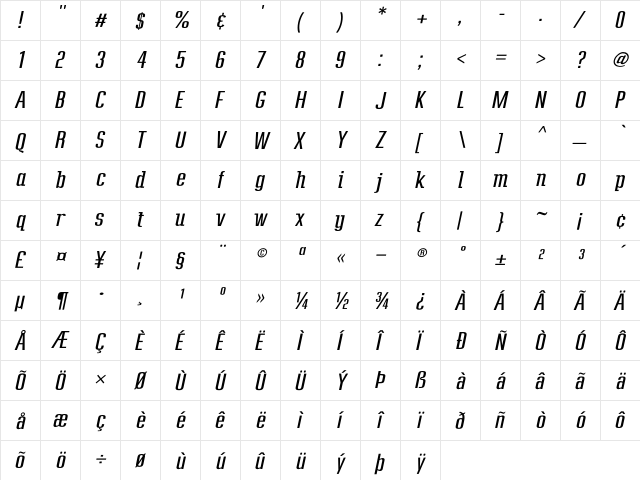
Frown Town Free Italic Regular
Design Context for Frown Town Free Italic Typeface
Frown Town Free Italic takes a measured approach to typography — its balanced proportions and neutral character make it a reliable workhorse for both digital and print work. Its italic angle brings a sense of urgency and motion to the letterforms.
Pro Tip: Use Frown Town Free Italic for emphasis, pull quotes, and subheadings where its slanted energy can add rhythm to the layout.